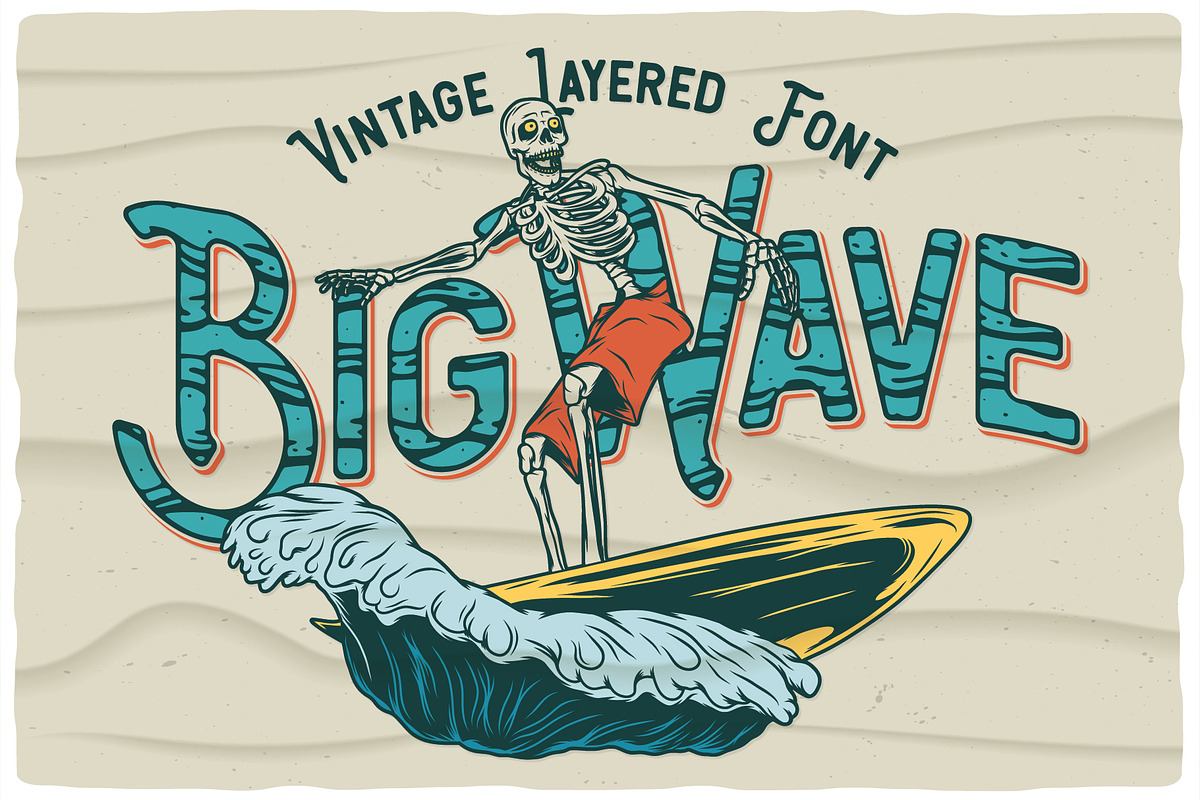
Big Wave Layered Font Free Download is a bold, retro-inspired typeface that makes a splash in every design. With its eye-catching layered style and surfer-era vibes, this font is perfect for posters, beachwear branding, summer events, and any project that needs to shout fun in the sun!
Designed to echo the golden age of surf culture, Big Wave Layered Font Free Download comes with multiple layers that allow for creative color combinations, shadow effects, and 3D impact. Whether you're working on vintage travel posters, playful merch, or sunny social media graphics, this font rides the wave between nostalgic and modern.
Its thick strokes and energetic curves make it highly readable, even from a distance—perfect for bold headlines and standout branding. Add a splash of coastal coolness to your work and let Big Wave carry your message with effortless style.